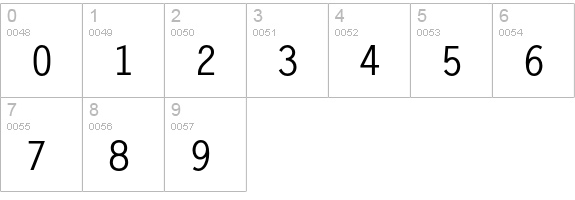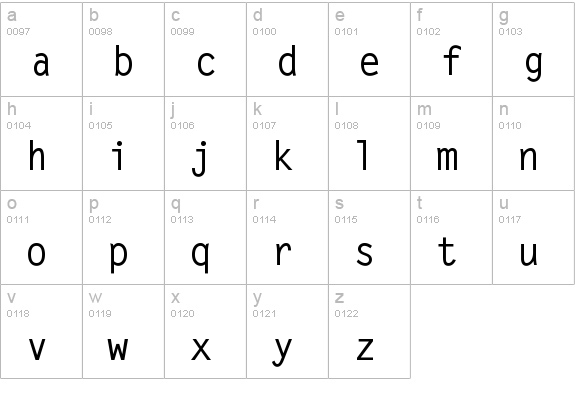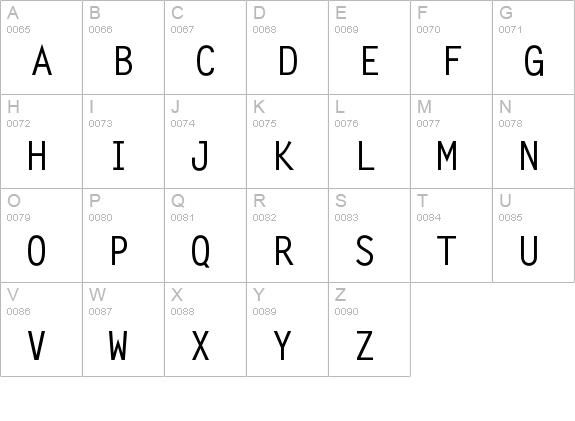
Letter Gothic Std Bold Font Details
Letter Gothic Std Bold is a strong, high-contrast variant in the Letter typeface family \xE2\x80\x94 well suited to headlines, attention-grabbing titles, and strong calls-to-action.
Letter Gothic Std Bold is a distinct and eye-catching font that exudes a sense of boldness and reliability. With its strong and sturdy letterforms, this font is perfect for conveying a sense of professionalism and power. Its clean and geometric design ensures readability, making it ideal for a wide range of applications. Whether you need to create impactful headlines, attention-grabbing logos, or sleek and modern designs, Letter Gothic Std Bold is the perfect choice. Its strong presence on the page will captivate your audience and leave a lasting impression. But what sets Letter Gothic Std Bold apart is its accessibility. Unlike many other fonts, this remarkable typeface is freely available to download at FontsMarket.com. This means that you can harness the power of this exceptional font without any barriers or restrictions. It's an opportunity to elevate your designs and make a statement, all without having to worry about any additional costs or limitations. So, whether you are a professional designer, a small business owner, or simply someone looking to add a touch of sophistication to your personal projects, Letter Gothic Std Bold is the font for you. Its bold and confident character, coupled with its accessibility, makes it a truly remarkable choice. Download it today from FontsMarket.com and experience the power of this exceptional font for yourself.